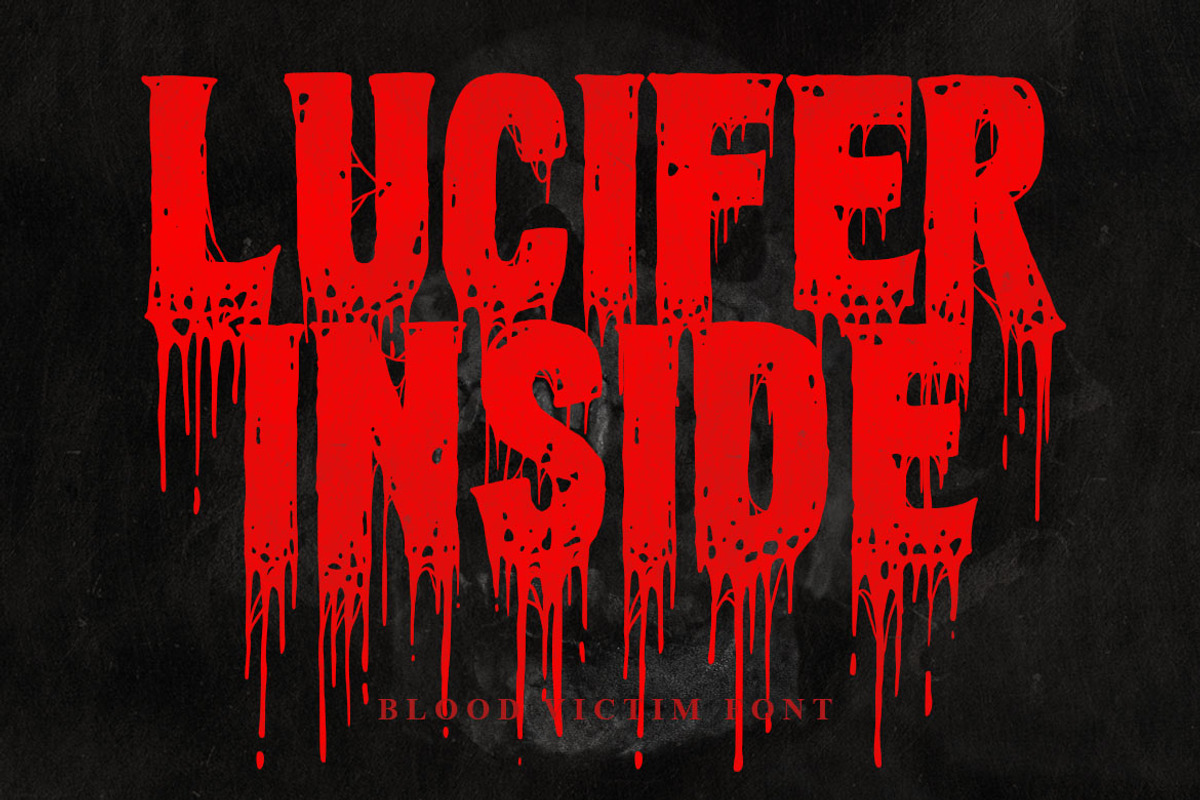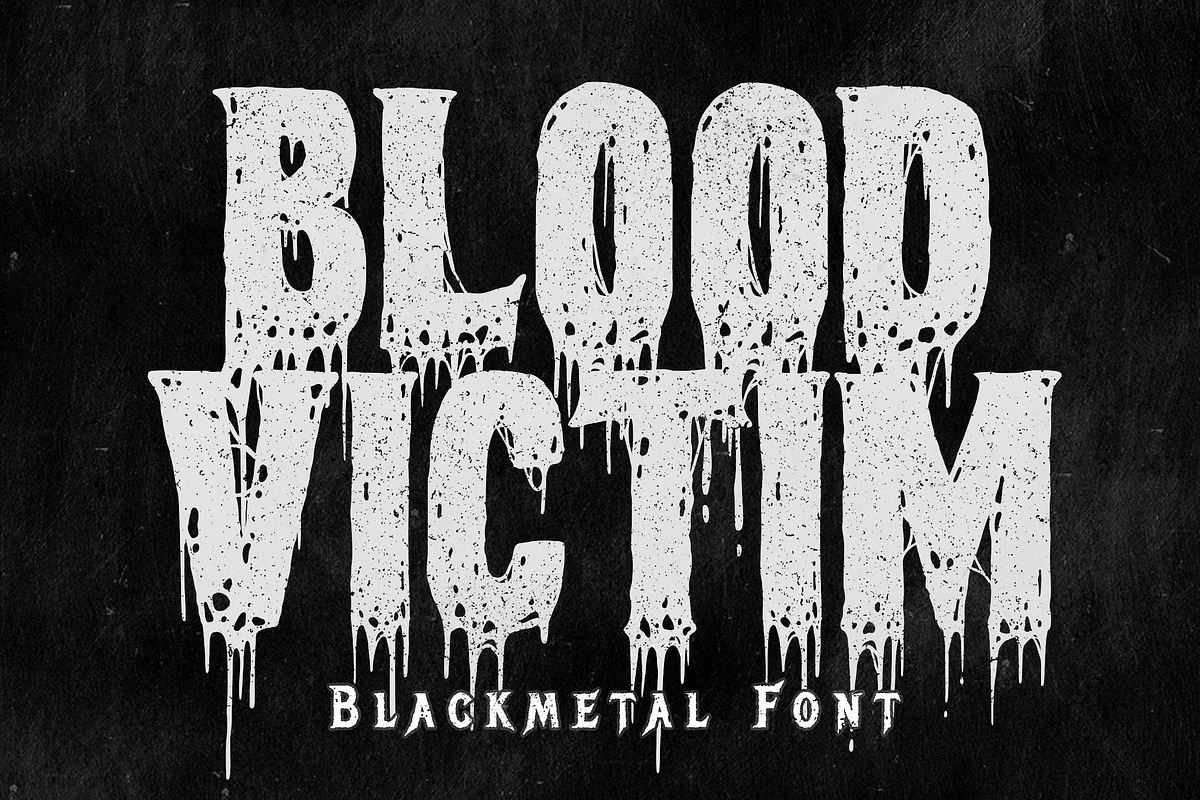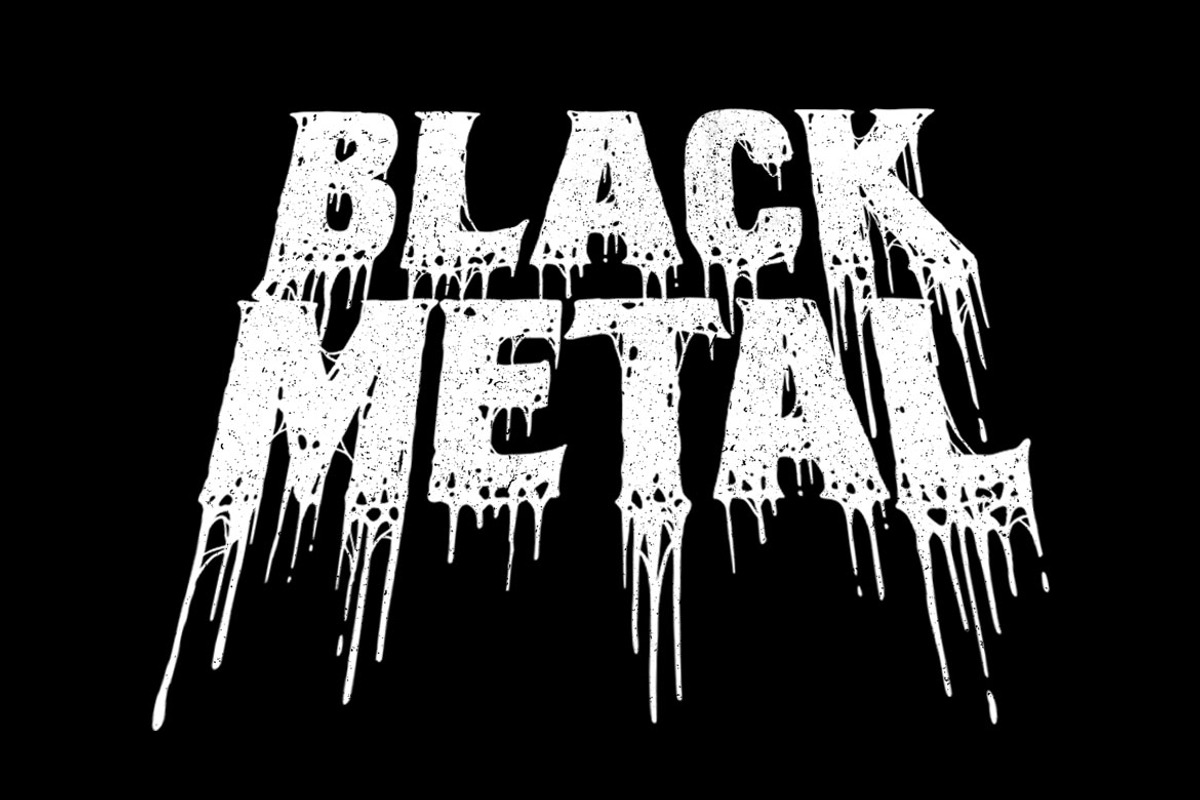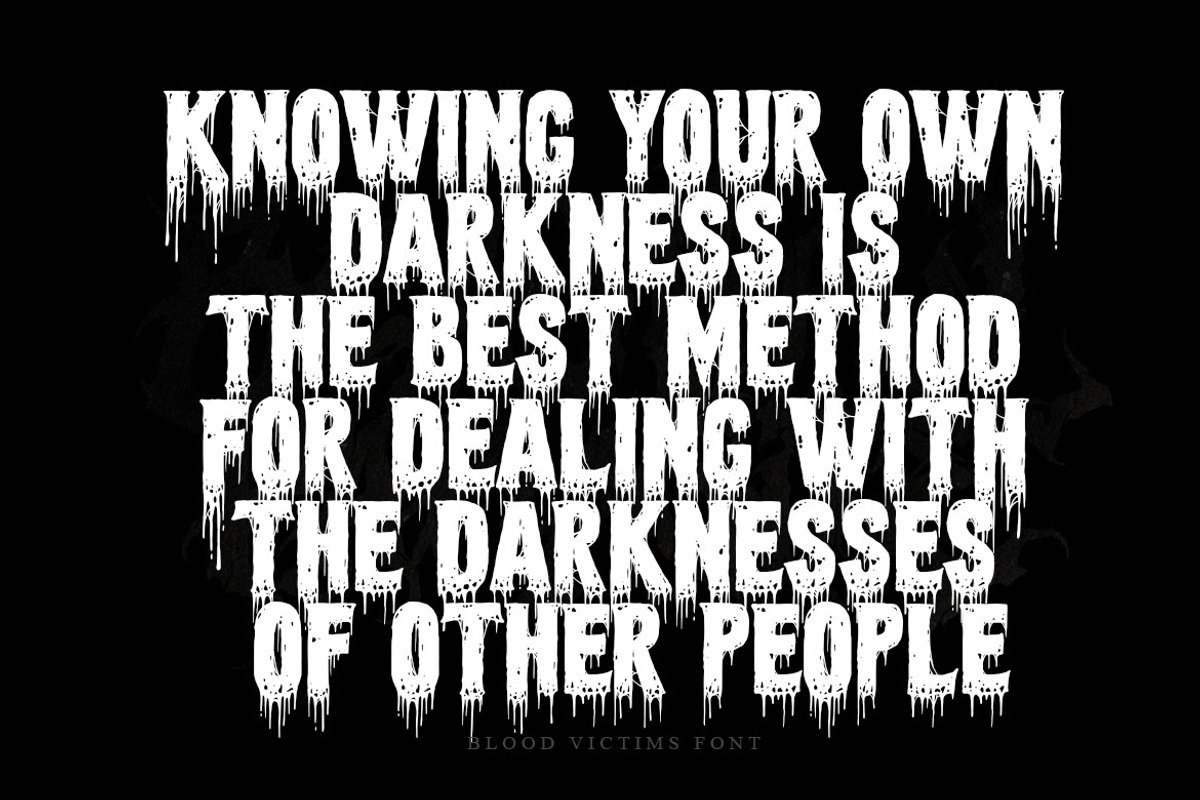
Blood Victim Black Metal
Blood Victim is awesome death metal font. Comes with Uppercase and lowercase characters. This font is great for any gore/metal/brutal design purposes. Blood Victim is awesome for your logo, your band, for merchandise, for clothing, and movie title/poster